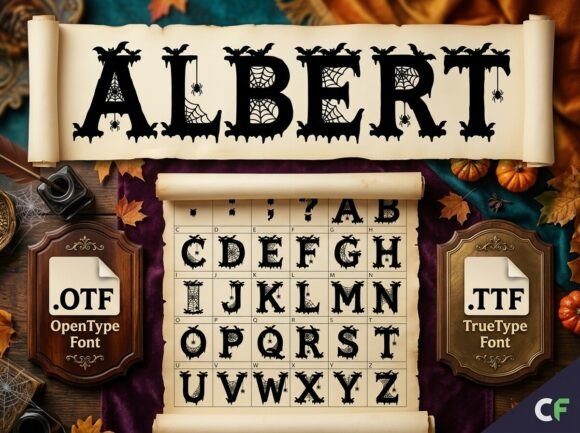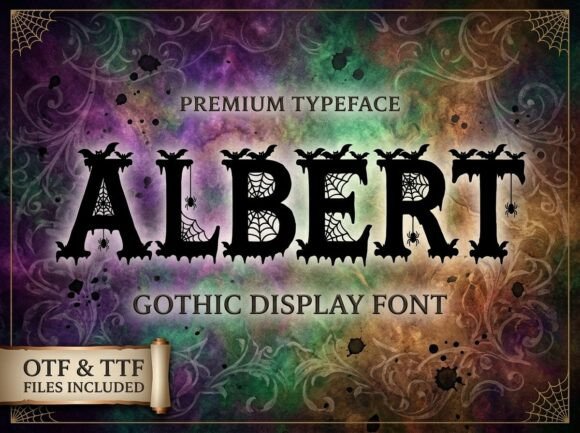
Introducing Albert Font: A Stunning Decorative Display Font
Are you tired of using the same old fonts for your designs? Do you want to make a statement and grab the attention of your audience? Look no further than Albert Font, a unique and artistic display font that’s perfect for creators who want to break away from the ordinary.
A Font that’s Truly One-of-a-Kind
Albert Font is a decorative display font that’s designed to be the center of attention. With its unique artistic elements and strong visual personality, this font is sure to make your designs stand out from the crowd. Whether you’re creating bold headlines, artistic logos, or creative packaging, Albert Font is the perfect choice.
Versatile and Professional
One of the best things about Albert Font is its versatility. This font is perfect for a wide range of design projects, from high-impact headlines and logos to decorative initials and packaging. And with its professional and polished finish, you can use it with confidence, knowing that your designs will look great.
Before you make your purchase, there’s something important to note: Albert Font is an ALL-CAPS (Uppercase Only) display typeface. This means that it does not include lowercase letters. It’s specifically designed for high-impact headlines, logos, and decorative initials where every letter is a work of art.
Why Choose Albert Font?
So why should you choose Albert Font for your design projects? Here are just a few reasons:
- Unique and Artistic – Albert Font is a truly one-of-a-kind font that’s sure to make your designs stand out.
- Versatile – This font is perfect for a wide range of design projects, from headlines and logos to packaging and more.
- Professional and Polished – With its professional and polished finish, Albert Font is perfect for designers who want to create high-quality designs.
Tips for Using Albert Font
Here are a few tips for using Albert Font in your design projects:
- Use it for Headlines – Albert Font is perfect for creating bold and eye-catching headlines that grab attention.
- Create Artistic Logos – With its unique and artistic elements, Albert Font is perfect for creating logos that stand out.
- Add Decorative Initials – Use Albert Font to add decorative initials to your designs, such as in books, magazines, or other publications.
Albert Font is a stunning decorative display font that’s perfect for designers and crafters who want to add a touch of elegance and sophistication to their designs. With its unique artistic elements, strong visual personality, and professional and polished finish, this font is sure to make your designs stand out. So why wait? Purchase Albert Font today and start creating stunning designs that grab attention!